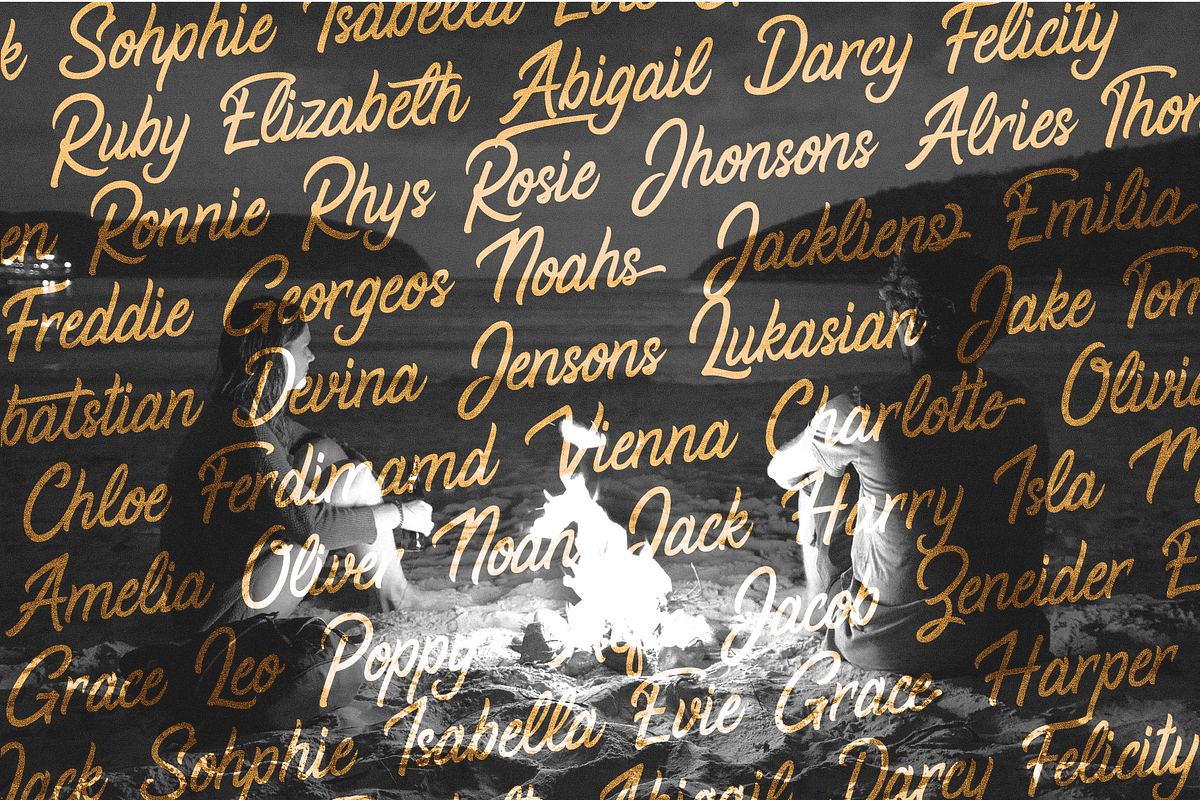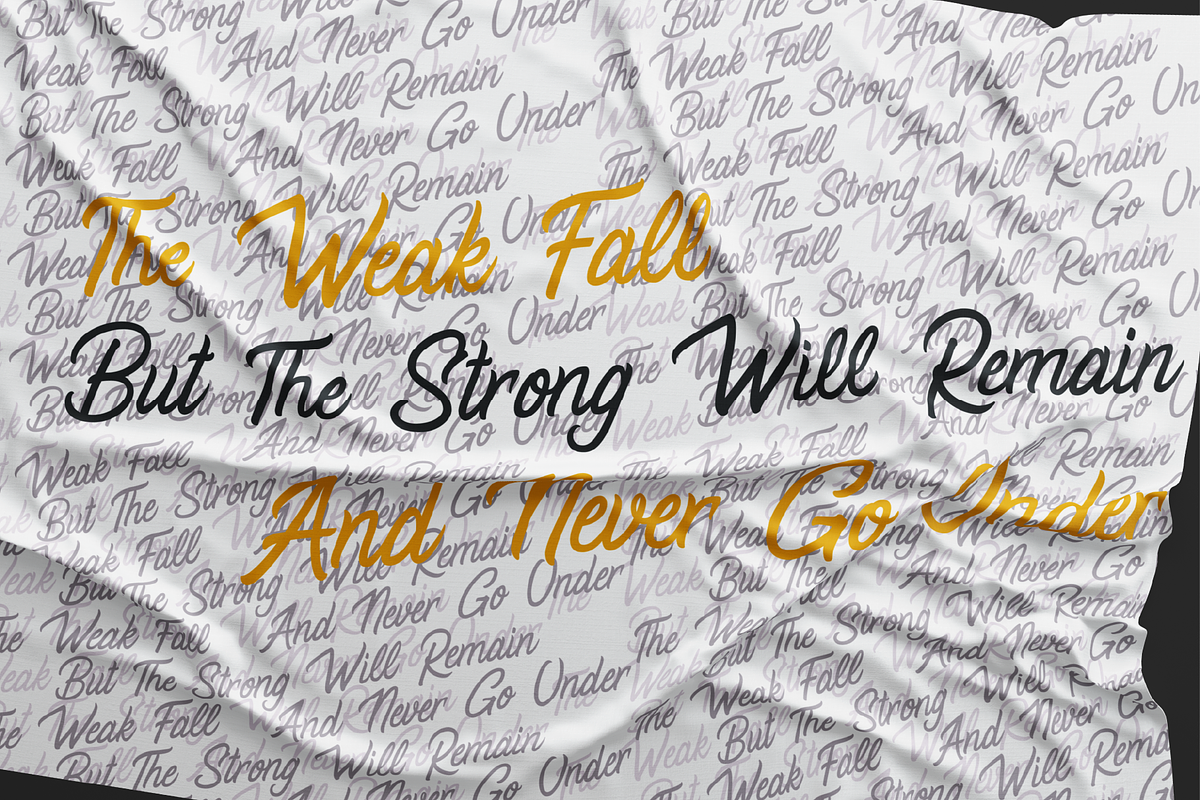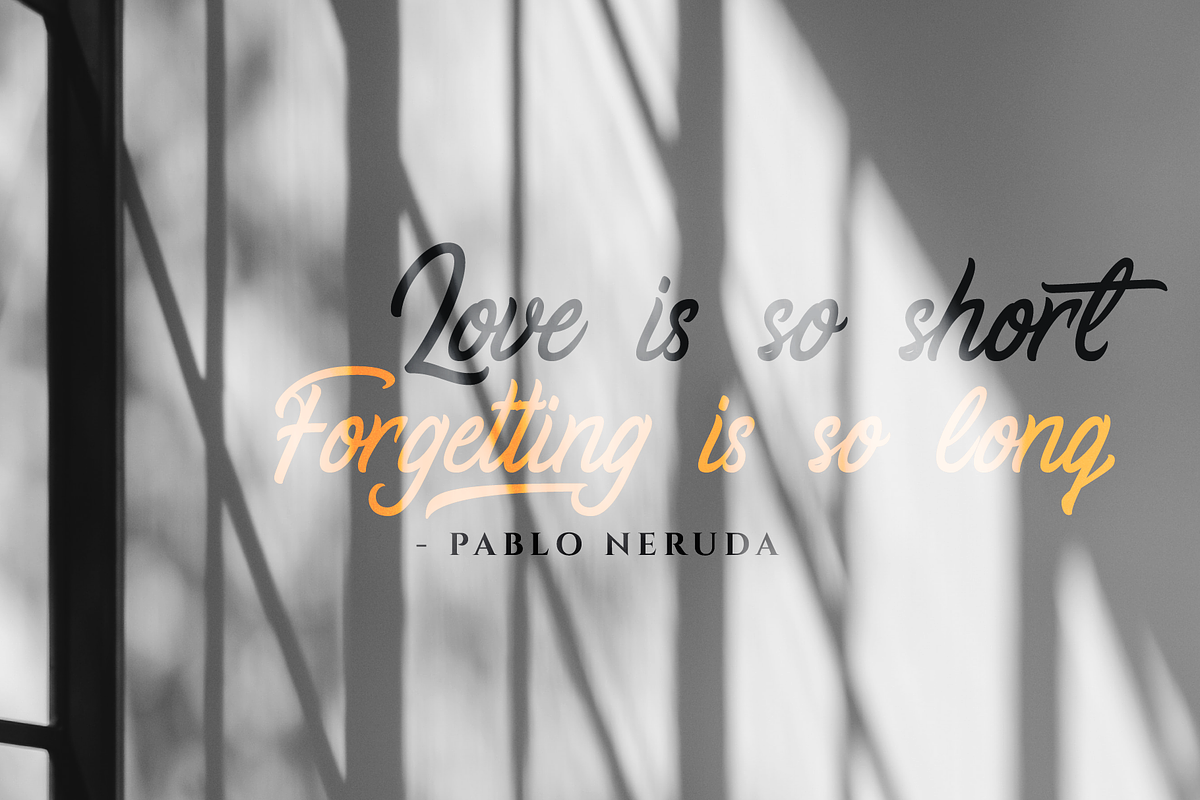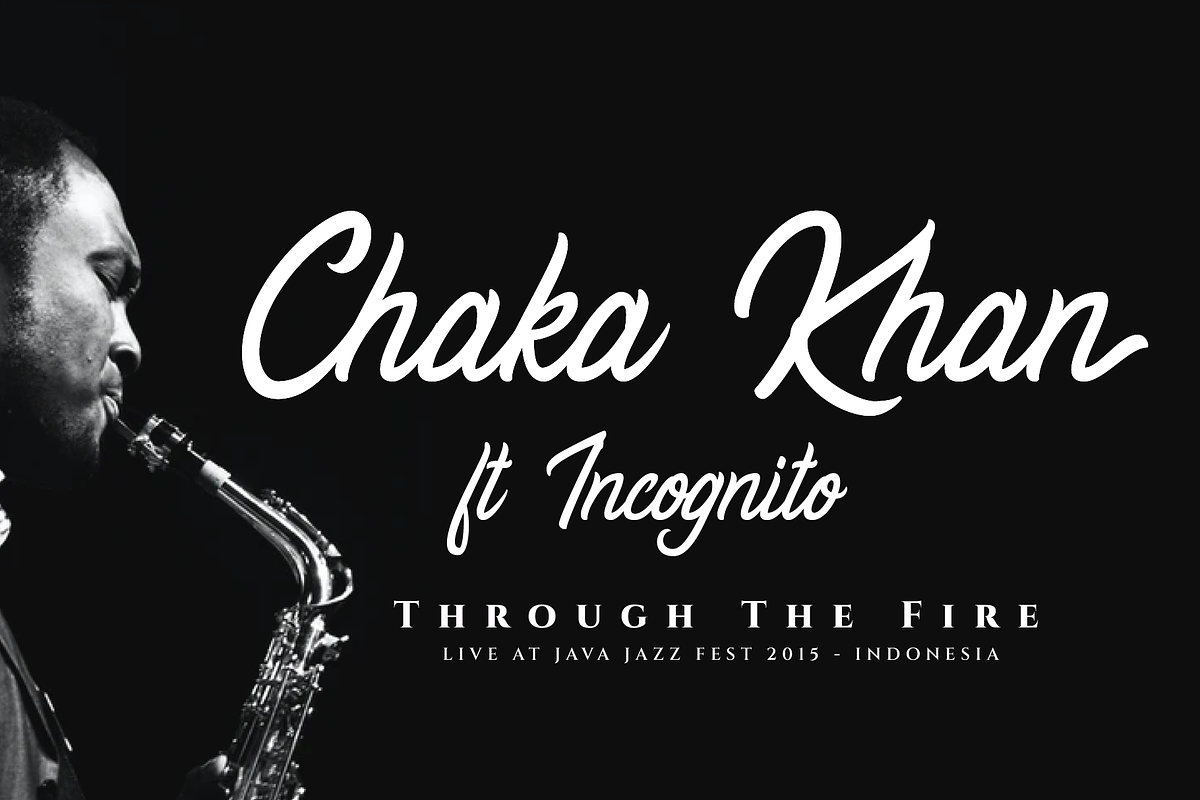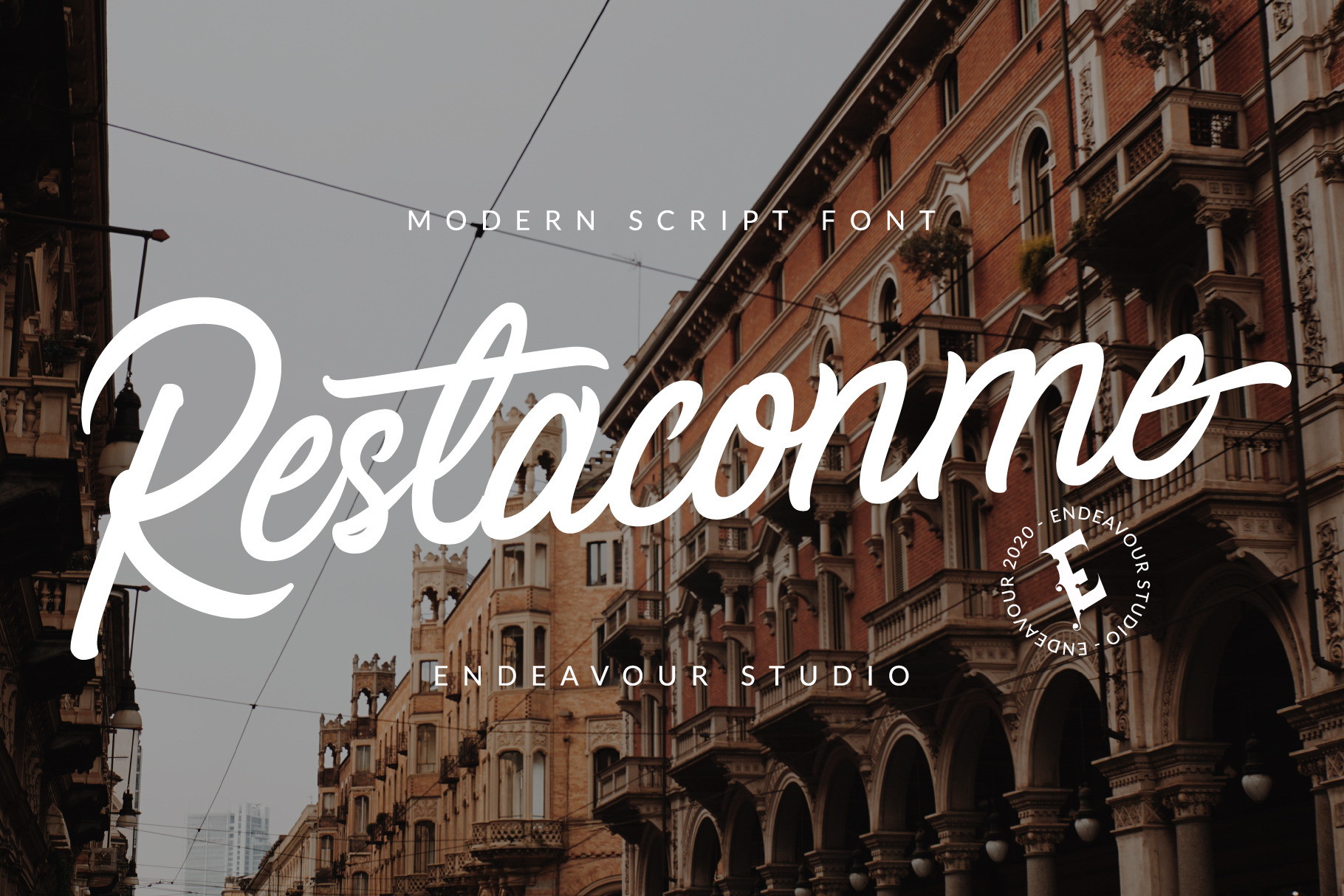
Restaconme Modern Script Font
Restaconme is a modern script font, the basic shape came from hand-lettering style the name inspired from Italian pianist Ludovico Einaudi. Resta con me mean to "stick with me", this great for your creative project related to Apparel, T-shirt, Logo, Wedding, Invitations, Cards, Product Packaging, Headers, Logotype, Letterhead, Poster, Apparel Design, Label, and etc.